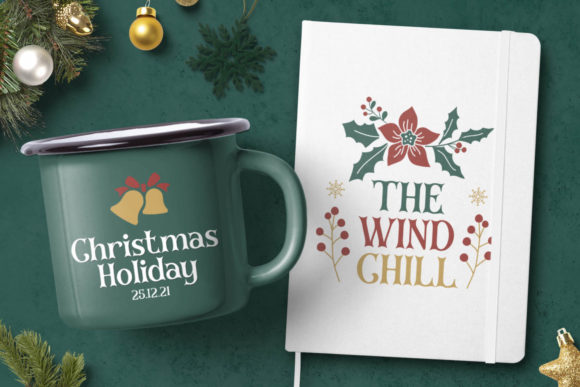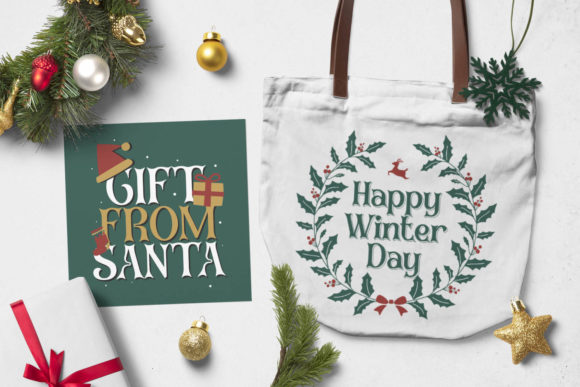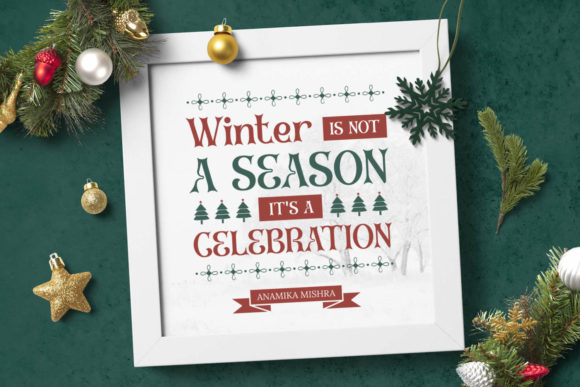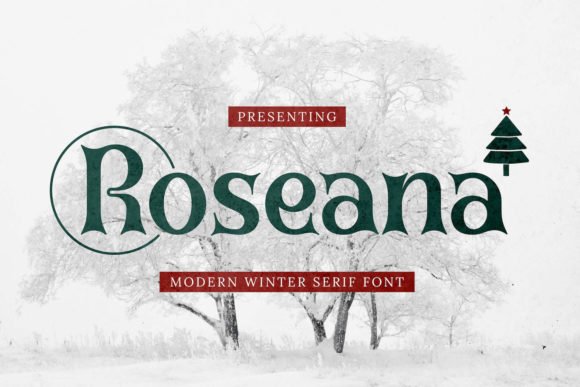
Introduction to Roseana Font
Roseana is a modern serif font.
Why Choose Roseana Font?
Roseana Font offers exceptional quality and versatility, making it a valuable addition to your design toolkit. Whether you’re creating for personal projects or commercial use, Roseana Font delivers professional results.